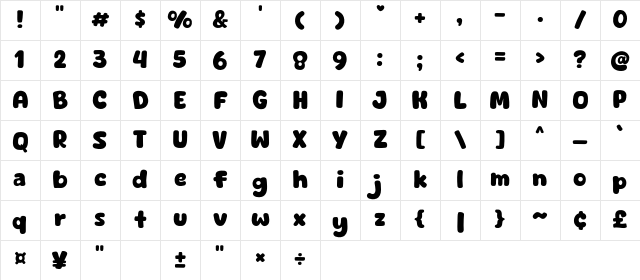
Cute Dino Regular Free Font
Cute Dino Regular
Foundry: Khurasan
Designer: Khurasan
Design Context for Cute Dino
Cute Dino is a composed and adaptable typeface that performs quietly and consistently across a wide range of design contexts.